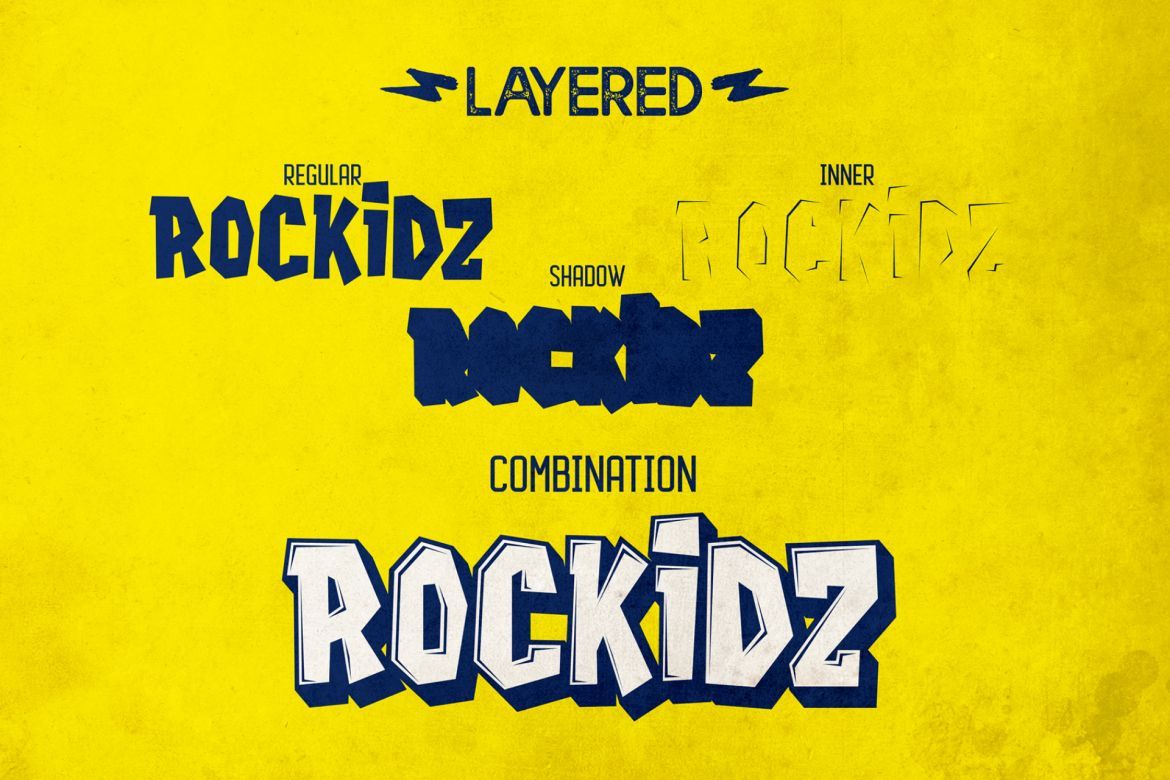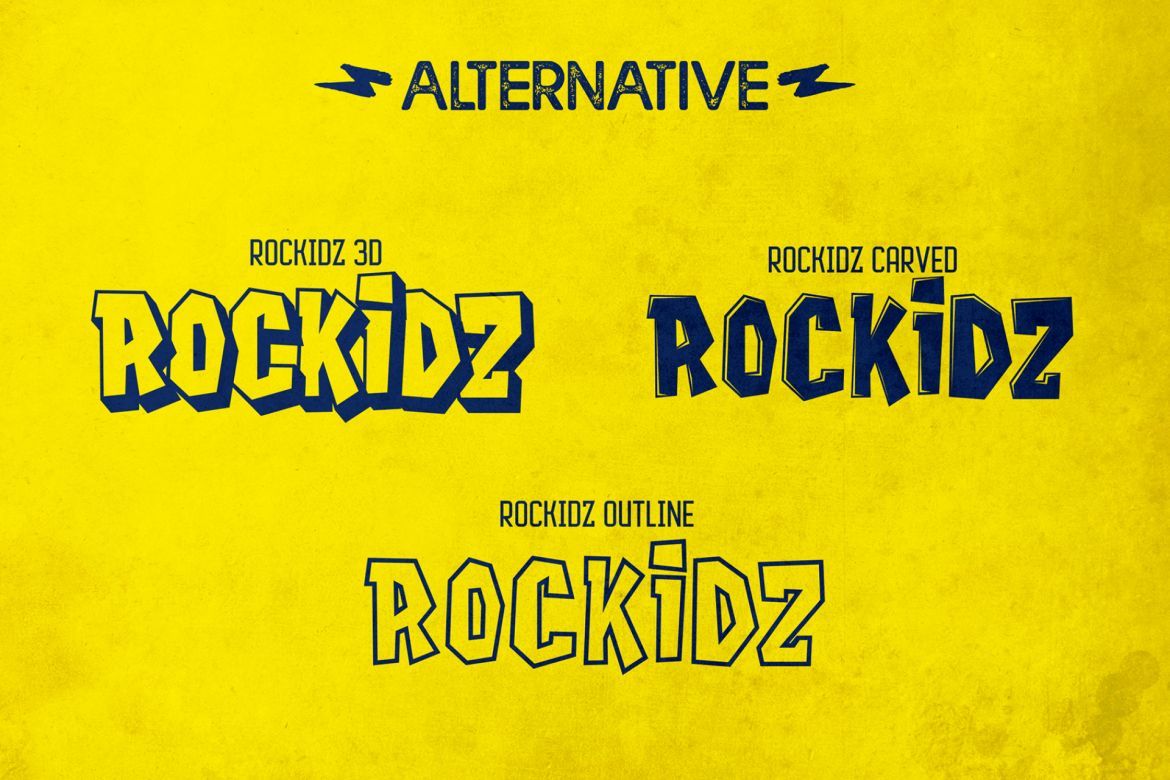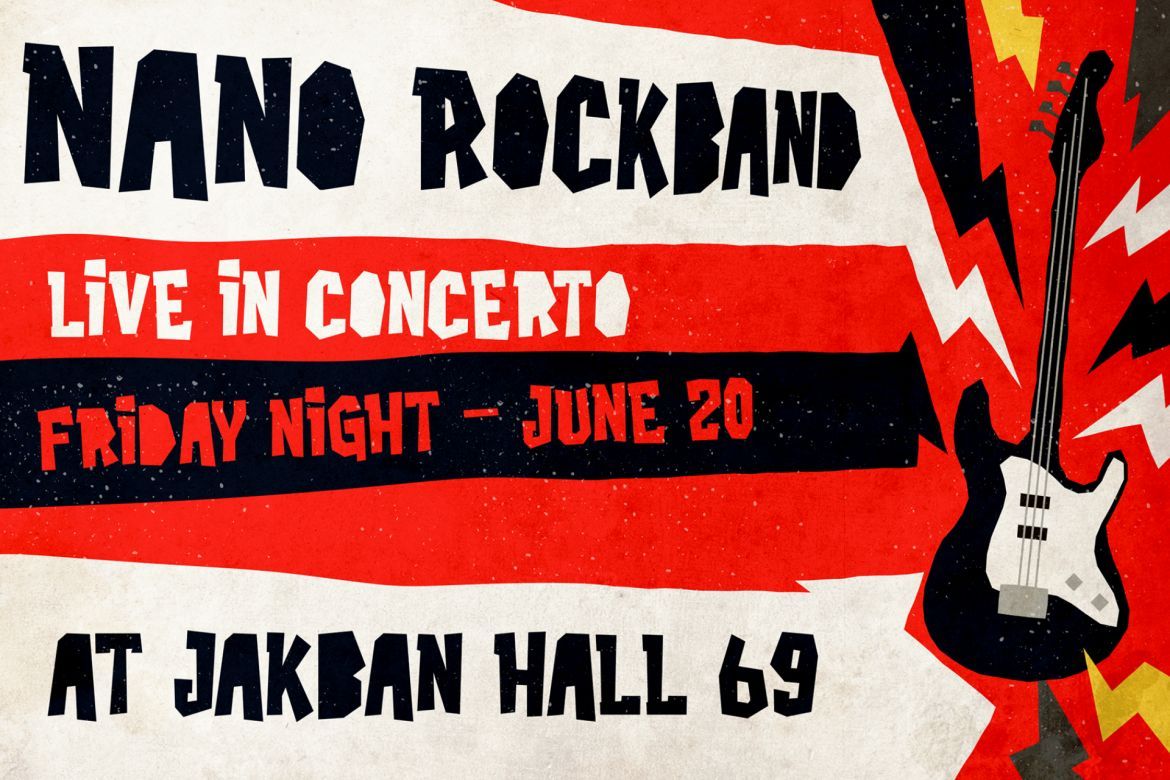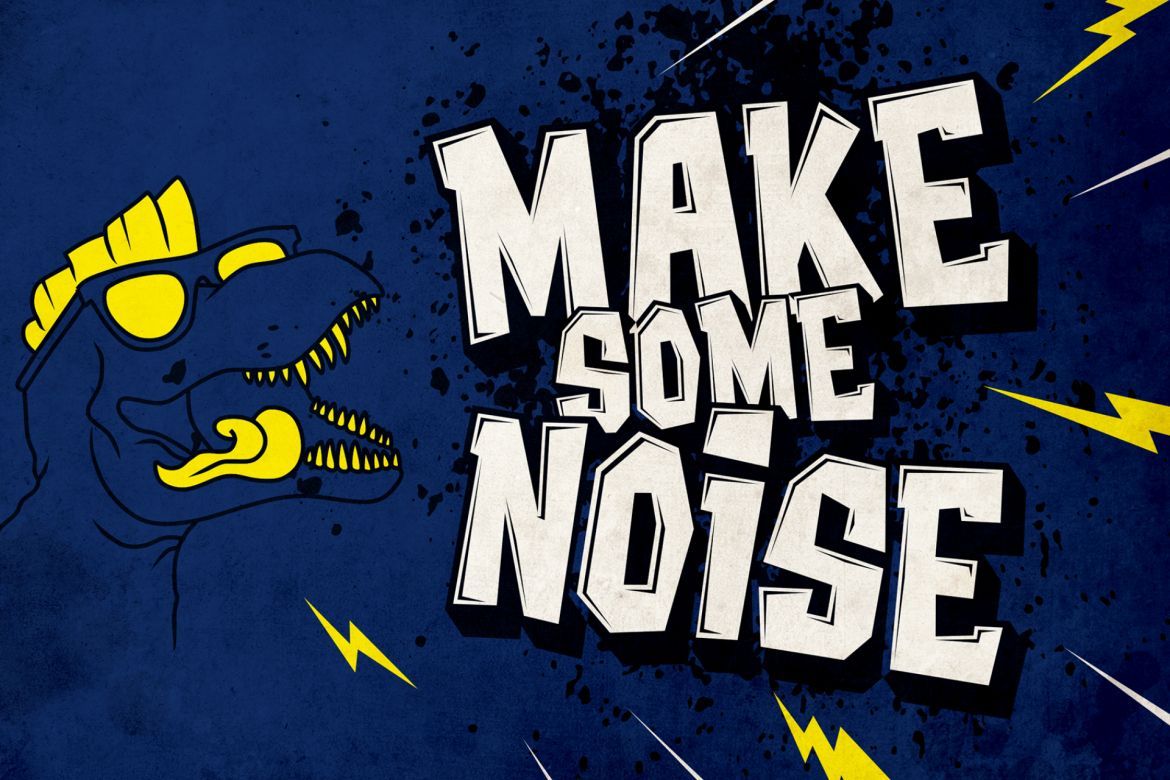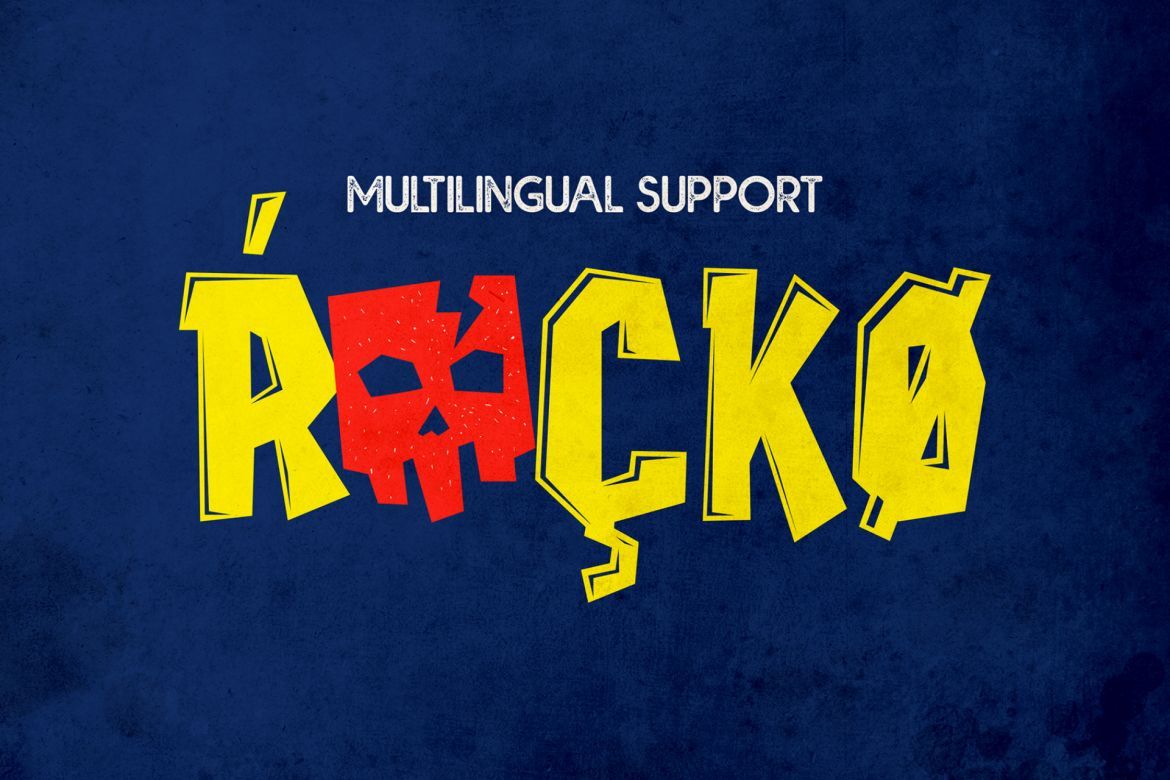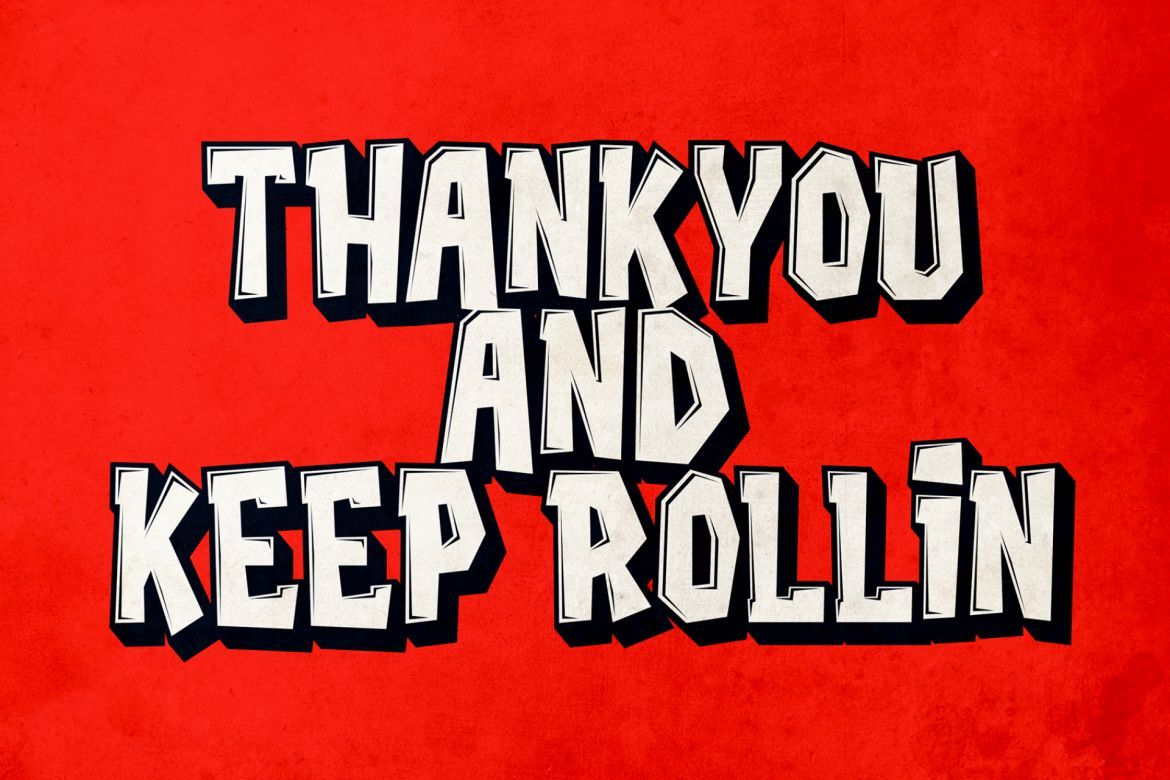
Rockidz - Layered Display Font
Introducing a new layered font family called Rockidz Inspired from powerful Rock Music. Rockidz best uses for headings, Logotype, quotes, apparel design, invitations, flyer, poster, greeting cards, product packaging, book cover, printed quotes, cover album, movie, etc.
• best uses for headings, logotype, quotes, apparel design, invitations, flyer, poster, greeting cards, product packaging, book cover, printed quotes, cover album, movie, etc.
• layered font family